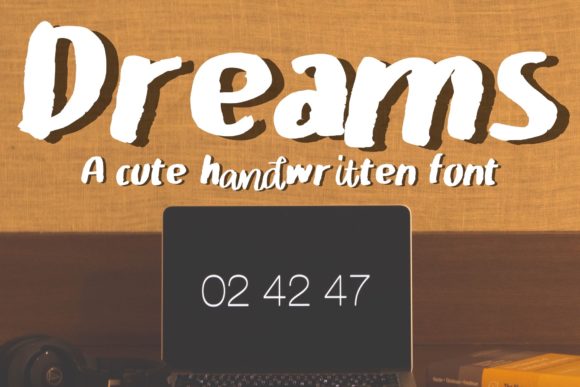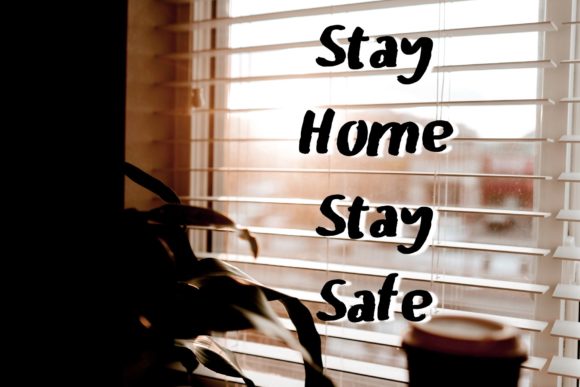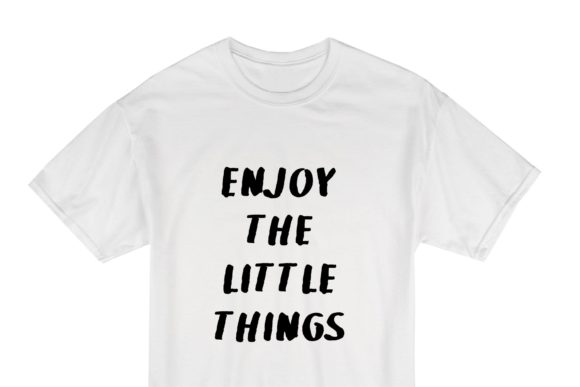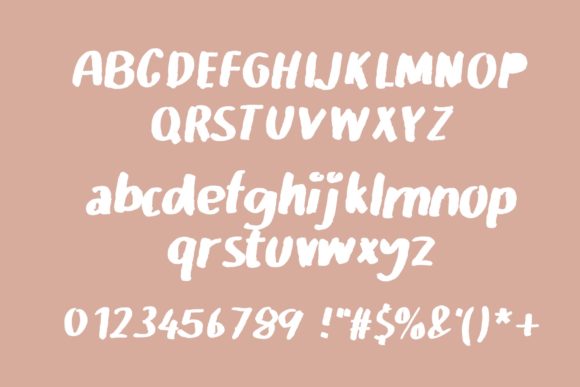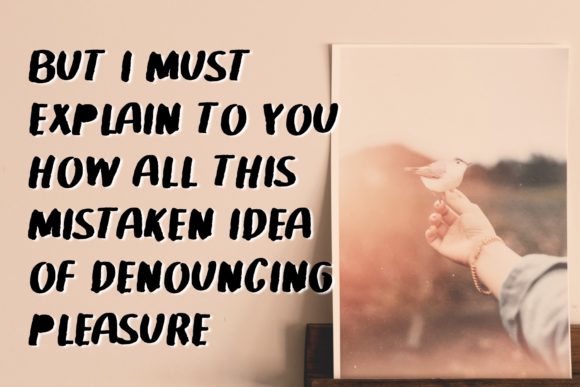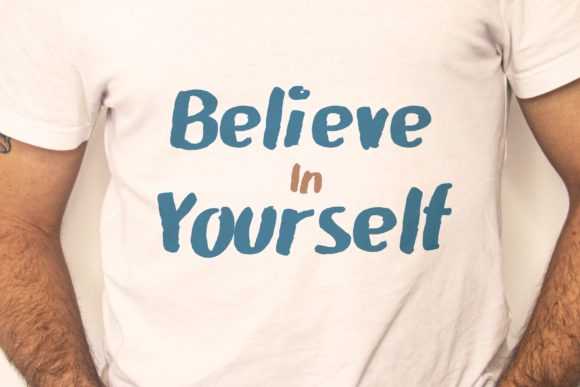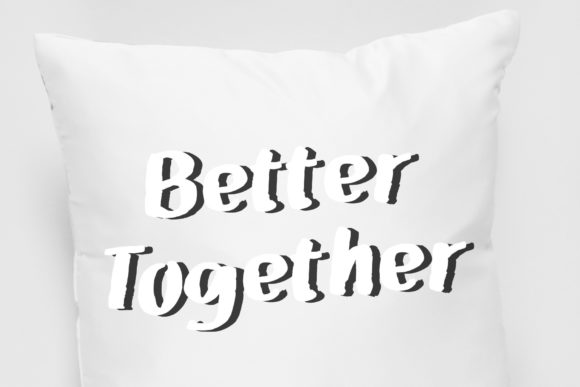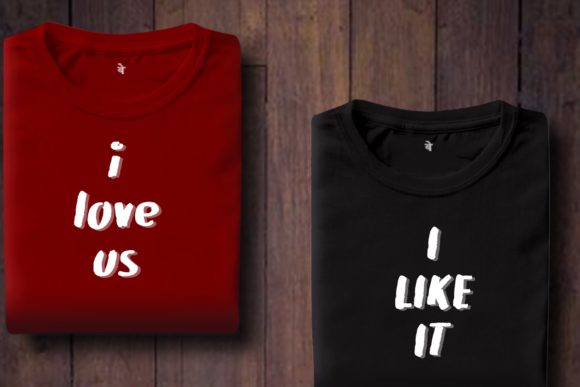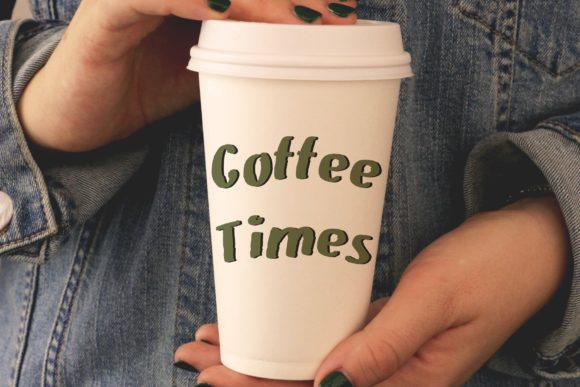
Dreams Font
About Dreams Font
Dreams is a unique display font. Get inspired by its friendly look and use it to create wonderful designs, such as branding, social media posts, stationery and much more!